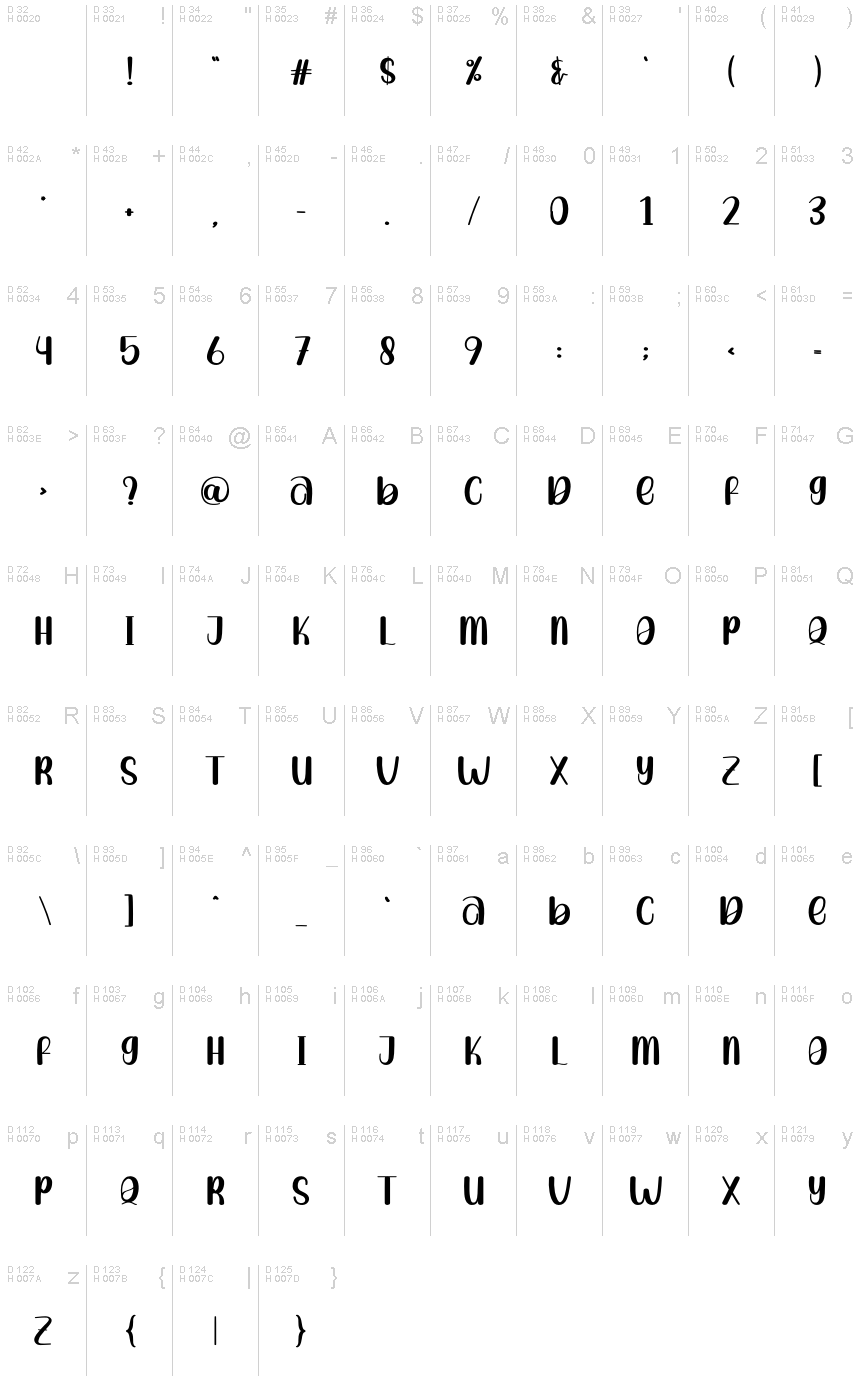
Star Fish
Star Fish is a captivating handwritten font designed by Andi Moz. Its organic, flowing strokes evoke a sense of whimsical charm, making it a versatile choice for a wide range of design applications.
The font's distinctive character shapes and natural variations lend it a unique, hand-crafted aesthetic that can elevate branding, packaging, and editorial layouts. Star Fish's playful yet refined style would shine in titles, headers, and accent text, adding a touch of personality to any project.
Its adaptability allows it to seamlessly integrate into designs that seek to convey a sense of warmth, creativity, and individuality.
The font's distinctive character shapes and natural variations lend it a unique, hand-crafted aesthetic that can elevate branding, packaging, and editorial layouts. Star Fish's playful yet refined style would shine in titles, headers, and accent text, adding a touch of personality to any project.
Its adaptability allows it to seamlessly integrate into designs that seek to convey a sense of warmth, creativity, and individuality.